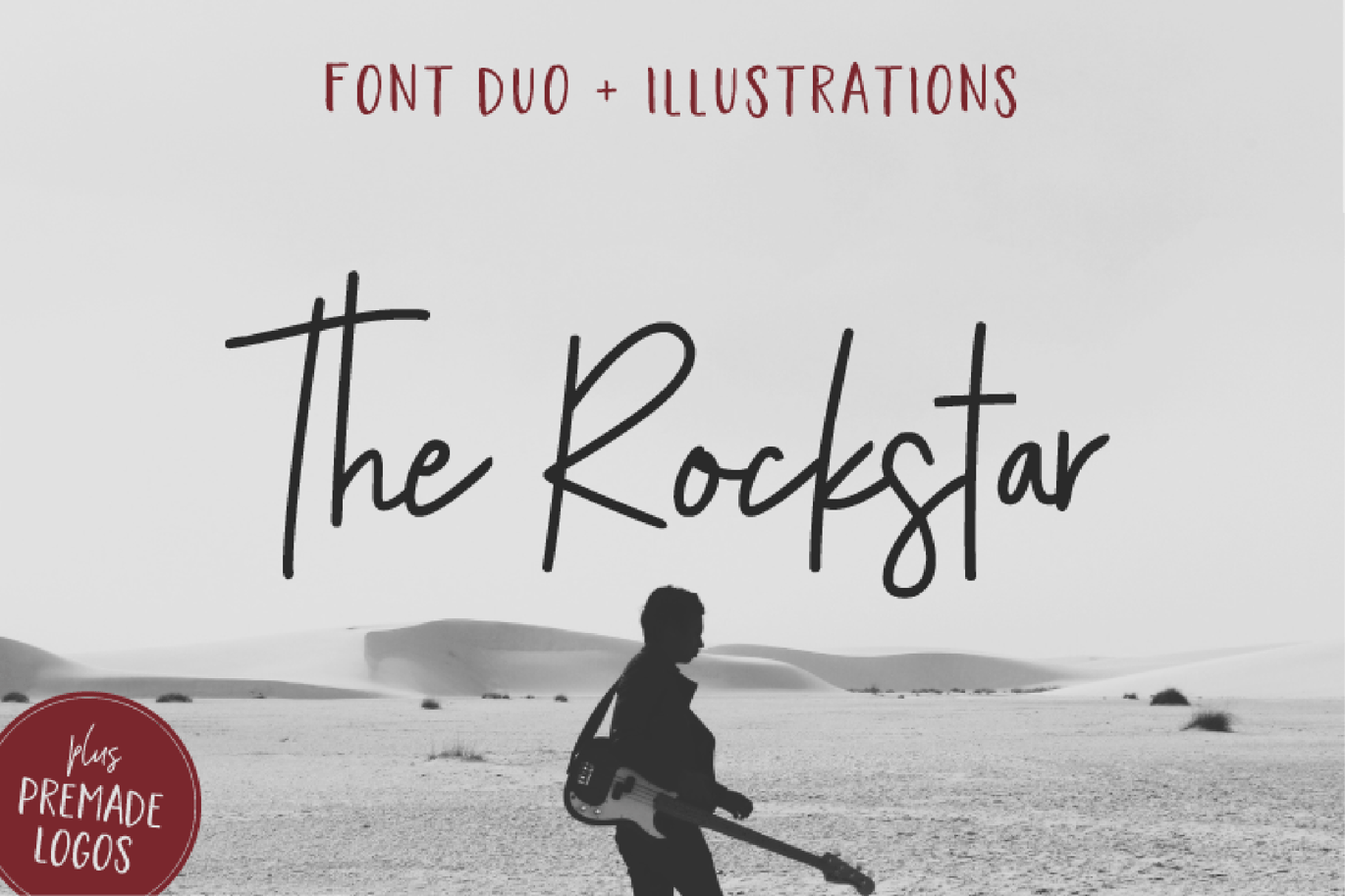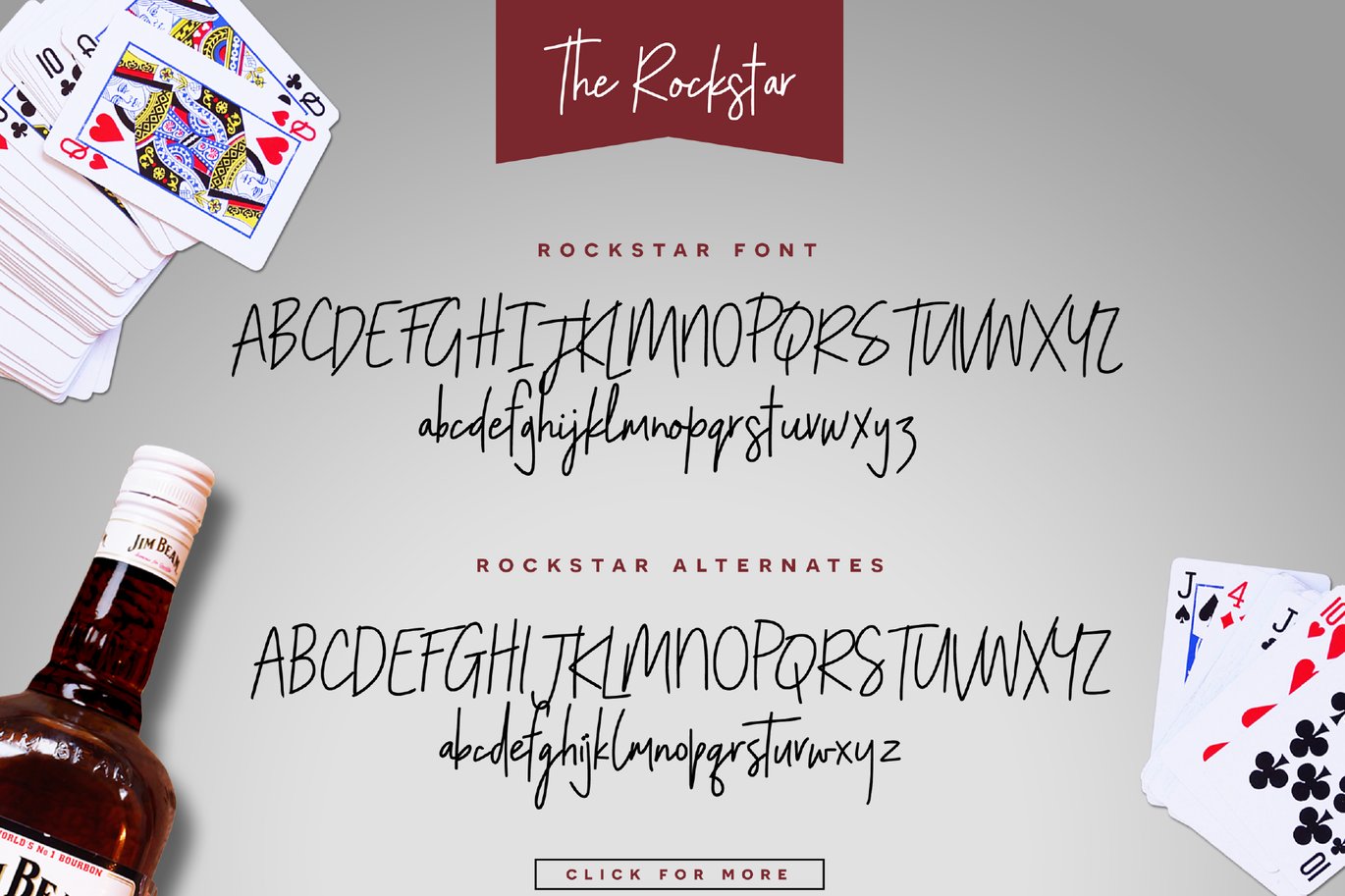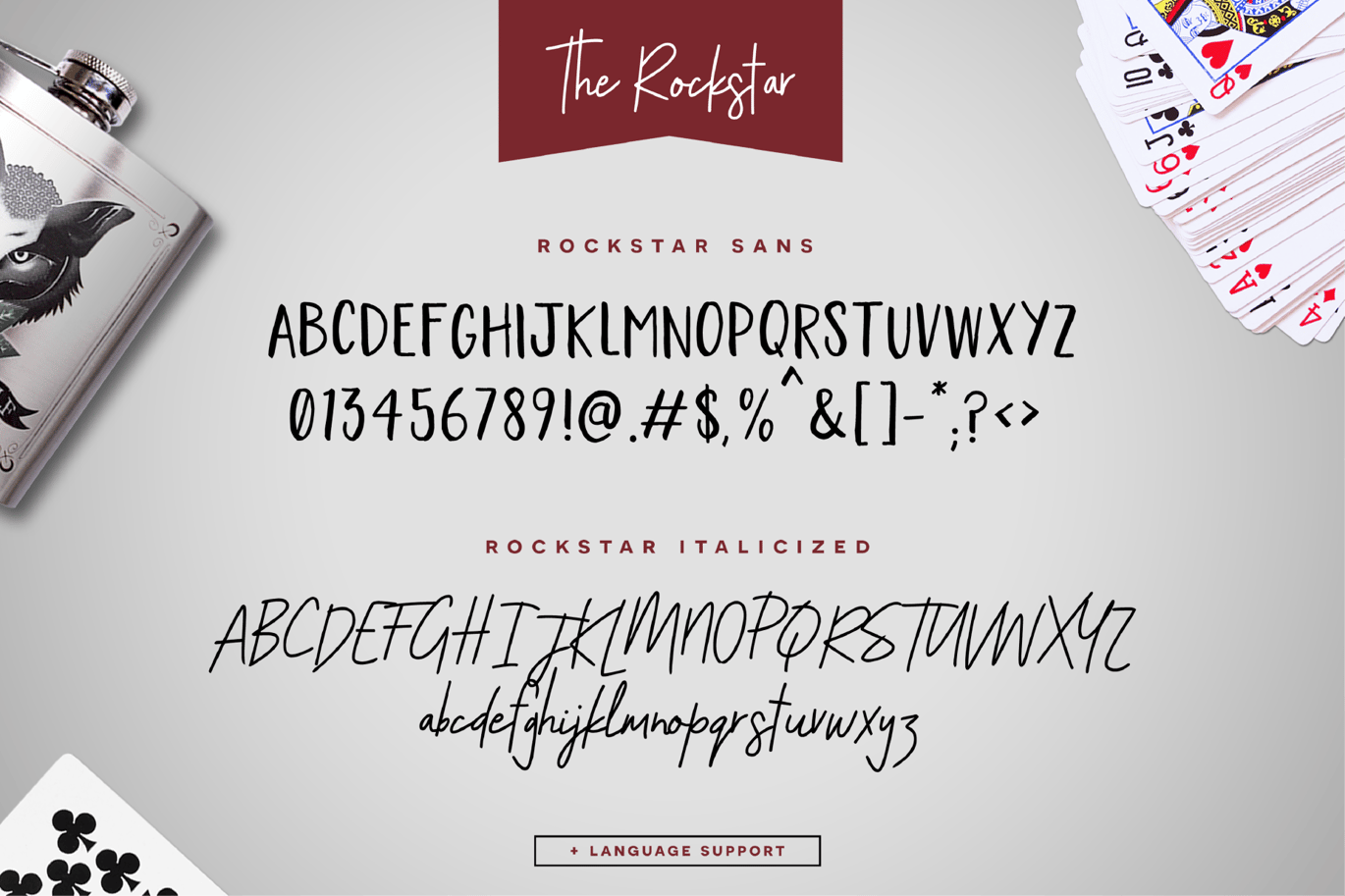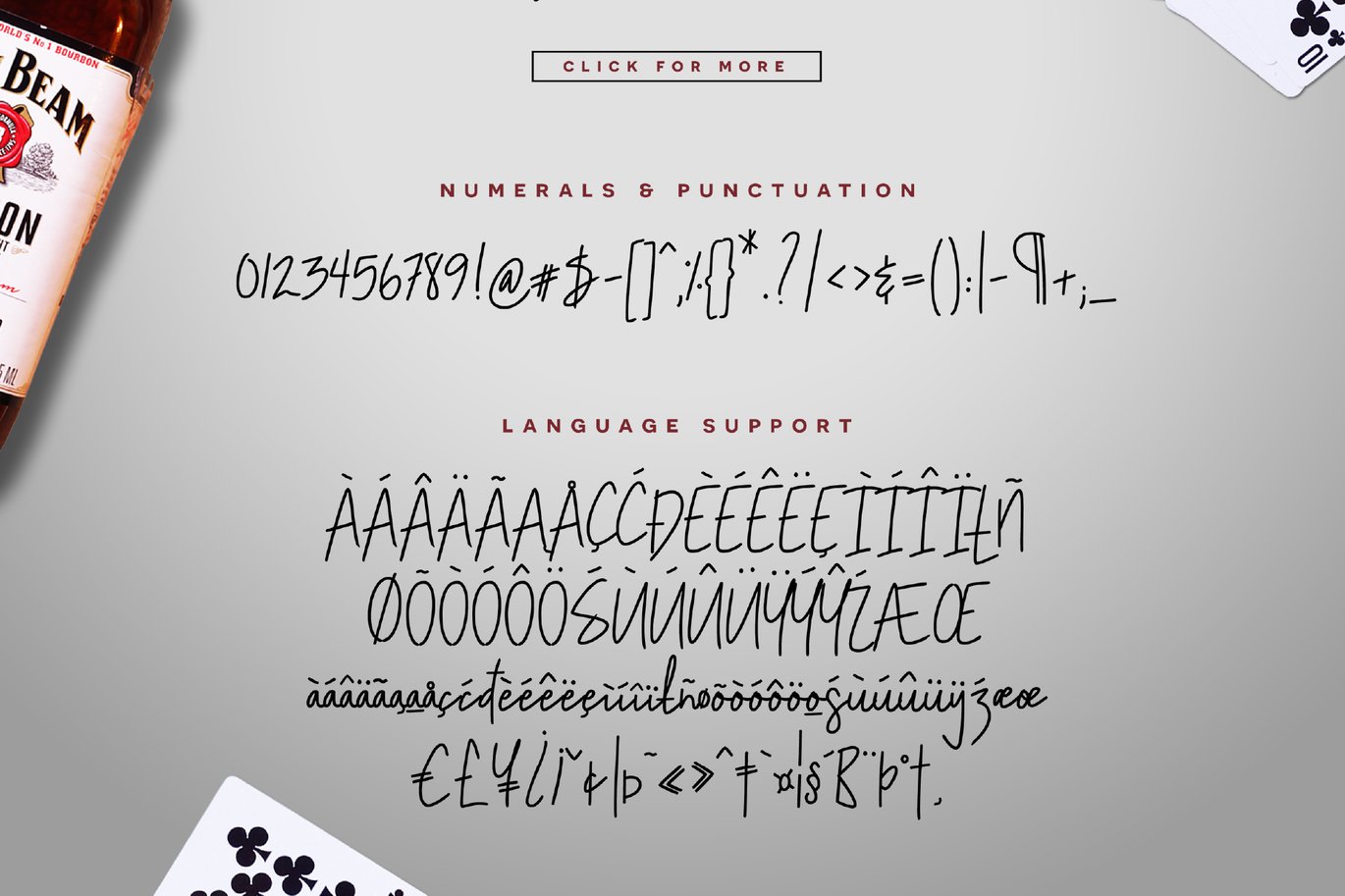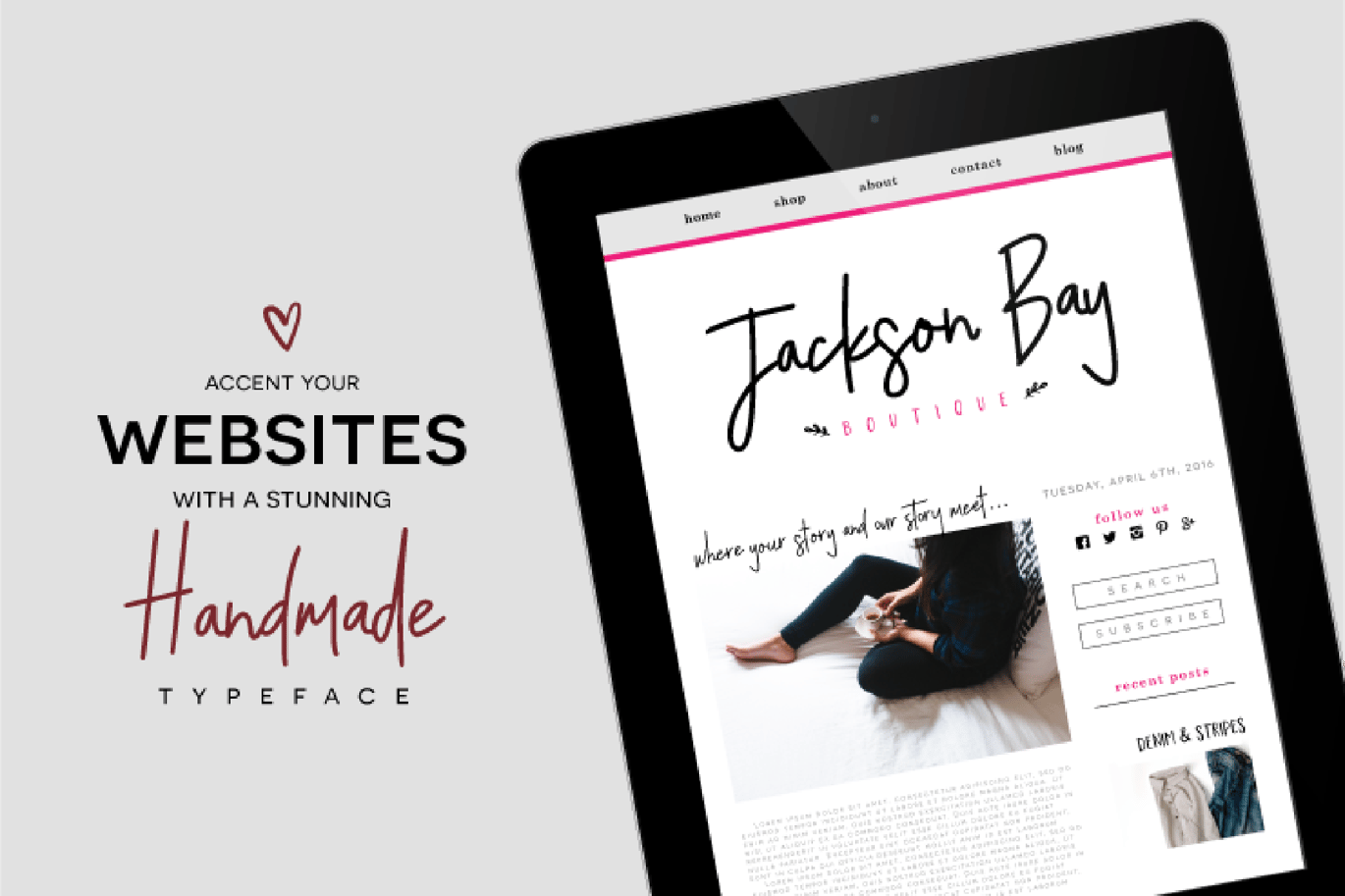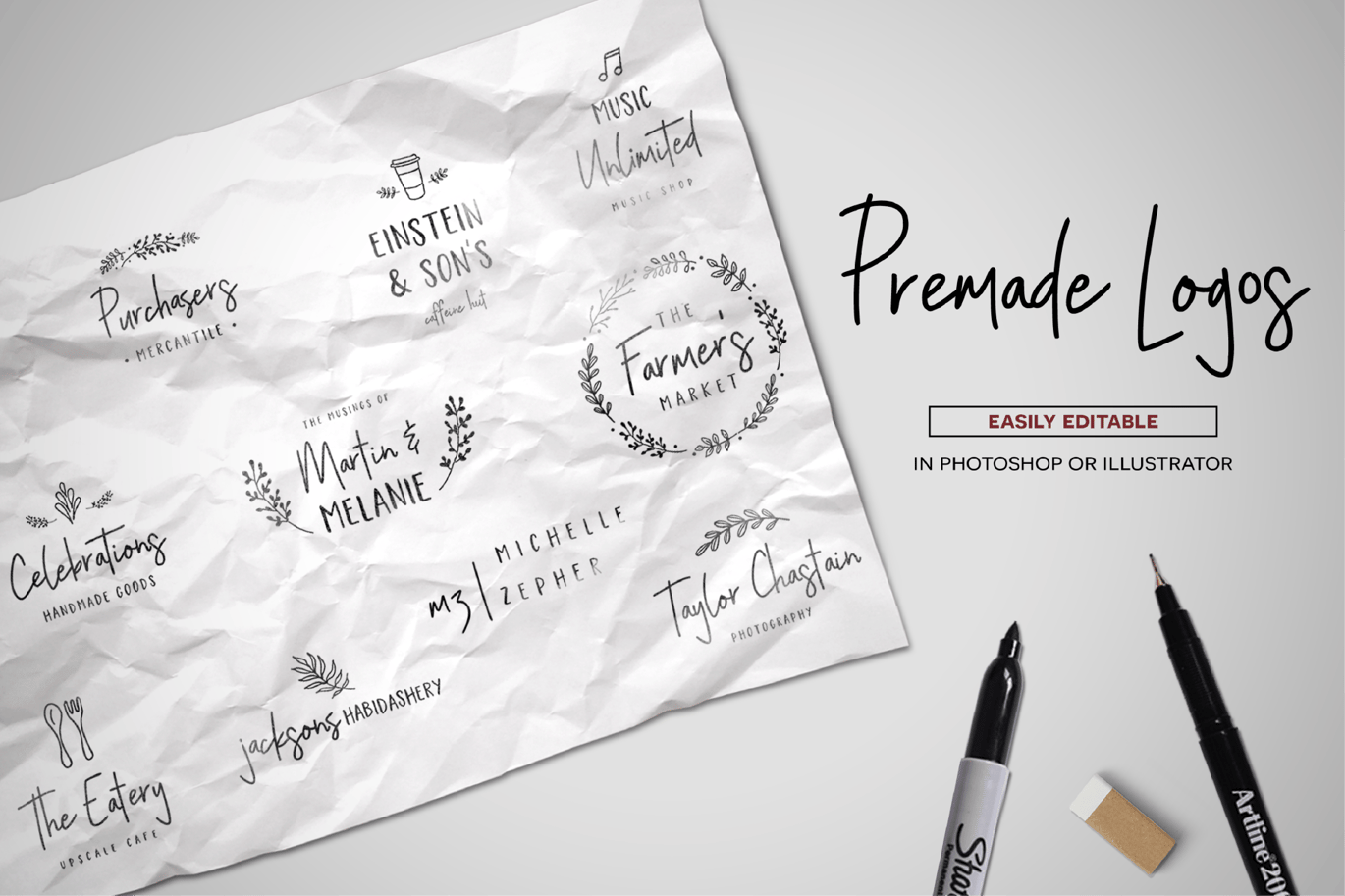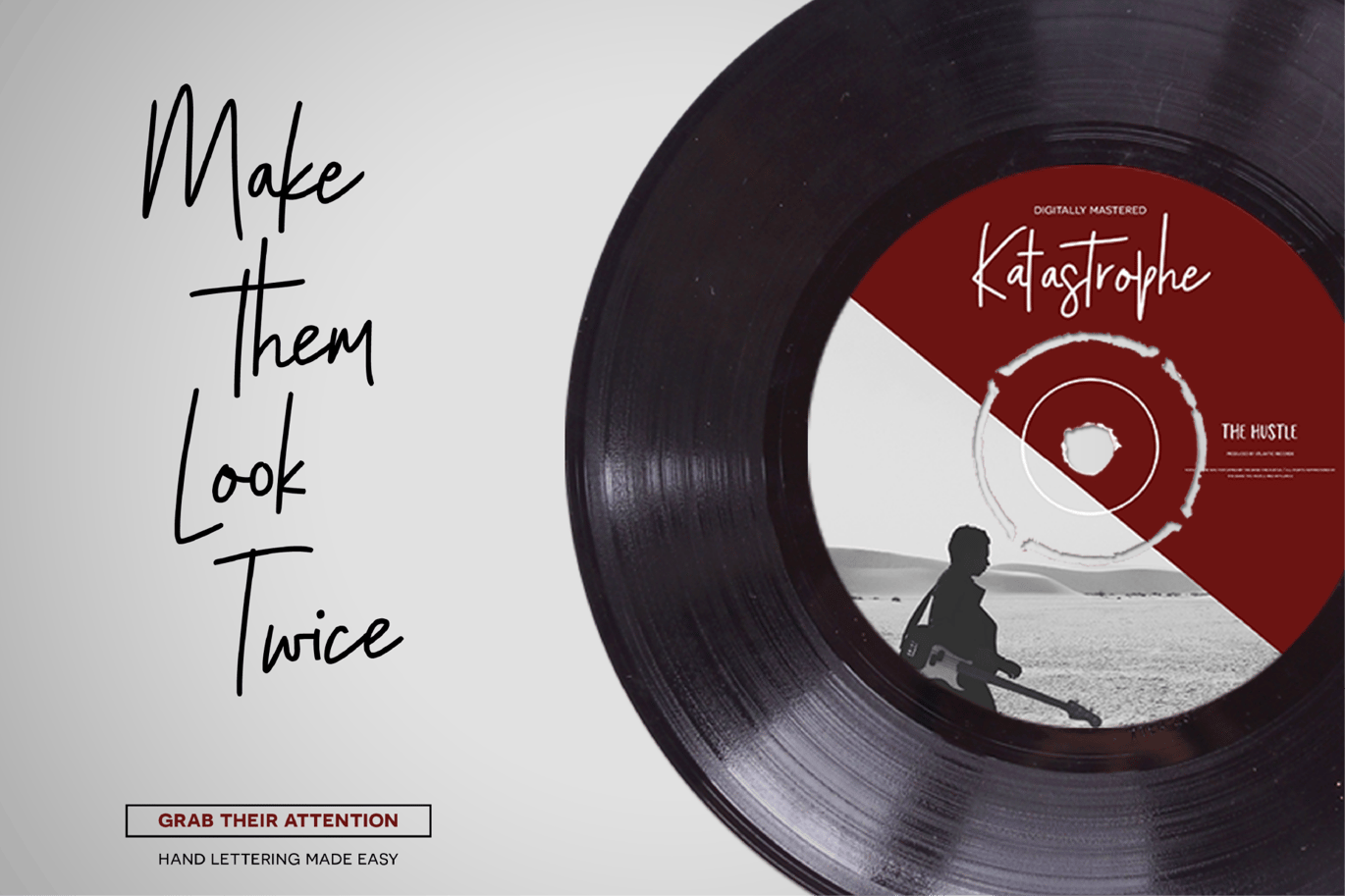
The Rockstar Font Duo
ABOUT THE ROCKSTAR FONT DUO
The Rockstar is an authentic hand made font duo that couples a bouncy script with an all-caps sans serif! It’s perfect for logos, branding, prints, and more. Check out the ENDLESS options you have mixing-and-matching these fonts with the hand drawn illustrations and pre-made logos that come with it!
- Over 100 Bonus Glyphs including International Language Support (English, French, Spanish, German, Polish, Italian, Portuguese, Latin, & More)